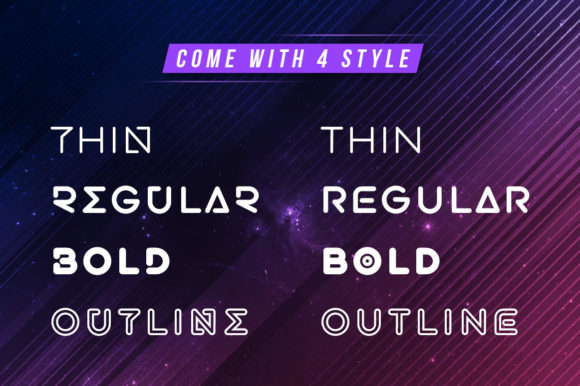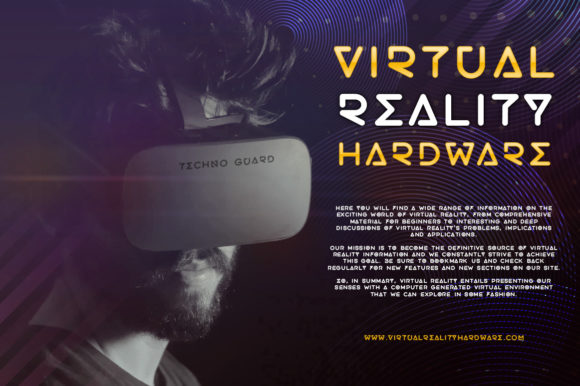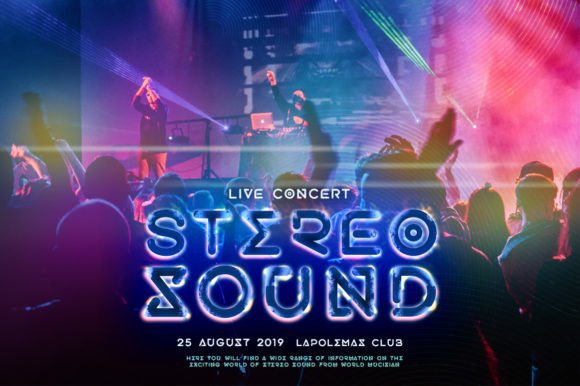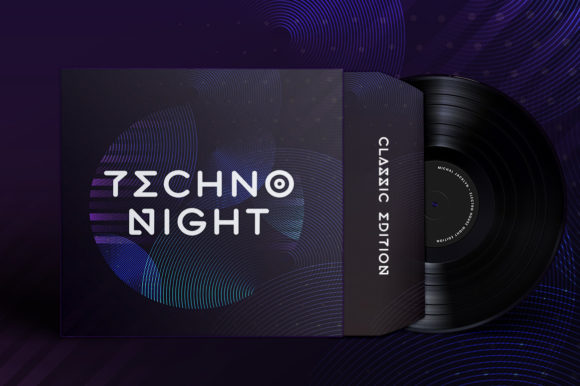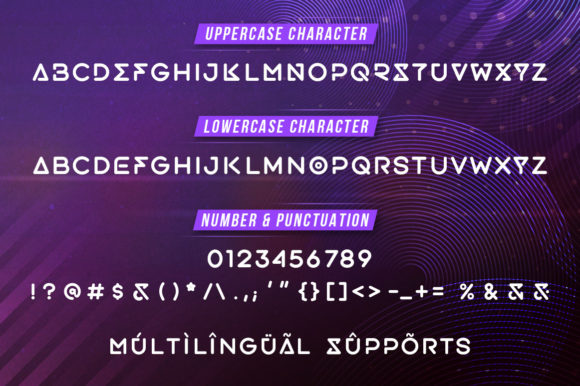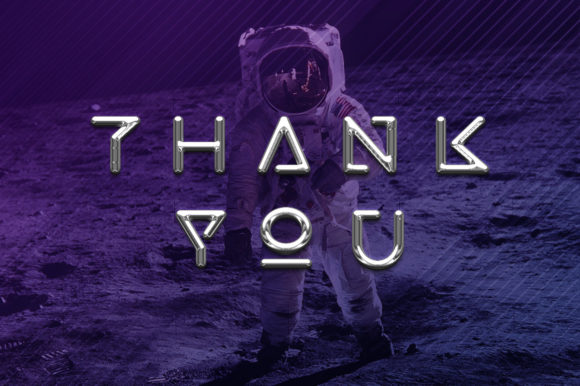
Introducing Exarros Font: The Ultimate Sci-Fi Display Font for Futuristic Designs
Are you a designer or crafter looking for a unique and eye-catching font to add a futuristic twist to your design projects? Look no further than Exarros Font, a one-of-a-kind display font that embodies the essence of science fiction. With its sleek and modern design, Exarros Font is perfect for creating stunning visuals that transport your audience to a futuristic world.
What is Exarros Font?
Exarros Font is a display font designed specifically for creative projects that require a sci-fi flair. Its unique design features a blend of sharp lines, geometric shapes, and futuristic curves, making it an ideal choice for designers who want to add a touch of futurism to their work. Whether you’re designing a logo, a poster, or a website, Exarros Font is sure to make your project stand out.
Key Features of Exarros Font
- Unique Design: Exarros Font boasts a distinctive design that sets it apart from other fonts. Its sci-fi feel is perfect for creating futuristic and modern visuals.
- Highly Versatile: Exarros Font is suitable for a wide range of design projects, from logos and posters to websites and social media graphics.
- Easily Readable: Despite its futuristic design, Exarros Font is highly legible, making it perfect for use in both headings and body text.
- Customizable: Exarros Font comes with multiple variations, allowing you to experiment with different styles and weights to suit your design needs.
Who Can Benefit from Exarros Font?
Exarros Font is an excellent choice for designers, crafters, and artists who work on projects that require a futuristic or sci-fi theme. This includes:
- Graphic Designers: Exarros Font is perfect for creating stunning logos, posters, and brochures that require a modern and futuristic look.
- Web Designers: Use Exarros Font to create visually appealing websites that transport your audience to a futuristic world.
- Game Developers: Exarros Font is an excellent choice for game developers who want to create a futuristic or sci-fi atmosphere in their games.
- Artists: Exarros Font can be used by artists who want to add a futuristic touch to their artwork, illustrations, or digital paintings.
Tips for Using Exarros Font Effectively
To get the most out of Exarros Font, here are some tips to keep in mind:
- Use it Sparingly: Exarros Font is a bold and attention-grabbing font, so use it sparingly to avoid overwhelming your design.
- Pair it with Other Fonts: Experiment with pairing Exarros Font with other fonts to create a unique and visually appealing combination.
- Adjust Font Size and Weight: Adjust the font size and weight to suit your design needs and create visual hierarchy.
Exarros Font is a one-of-a-kind display font that can add a futuristic twist to any design project. Its unique design, versatility, and readability make it an excellent choice for designers, crafters, and artists who work on sci-fi or futuristic projects. With Exarros Font, you can create stunning visuals that transport your audience to a futuristic world. So why wait? Download Exarros Font today and take your designs to the next level!